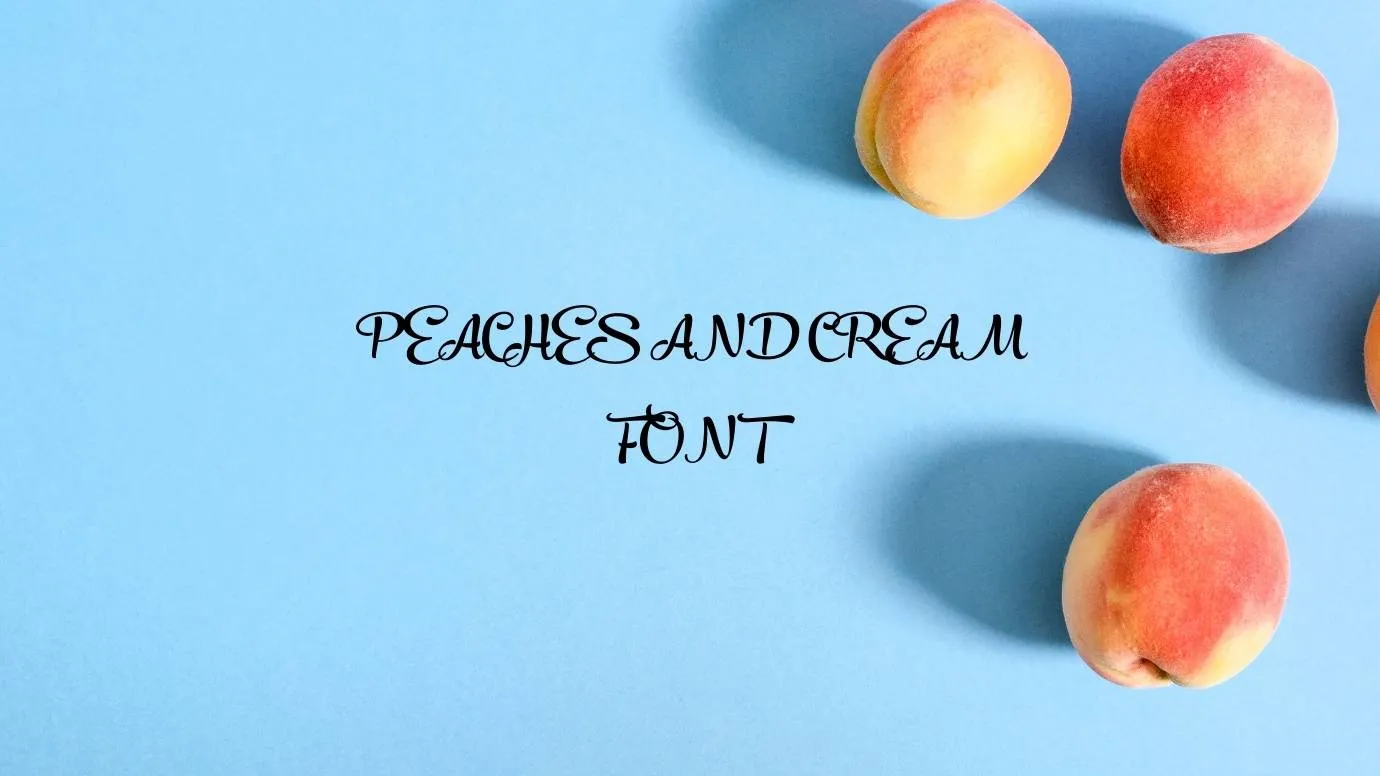
Peaches And Cream is a fantastic typeface comes in 5 weights including regular, bold, book, all caps, and ornaments. This elegant typeface was created by Emil Bertell and released through Fenotype foundry.
If you need to create a high-quality design such as brands, product packaging, logos, posters, book covers, card designs then use this peaches and cream regular with the combination of ornaments and caps.
Peaches And Cream Font Family
NamePeaches and Cream Font
DesignerEmil Bertell
FoundryFenotype foundry
StyleScript